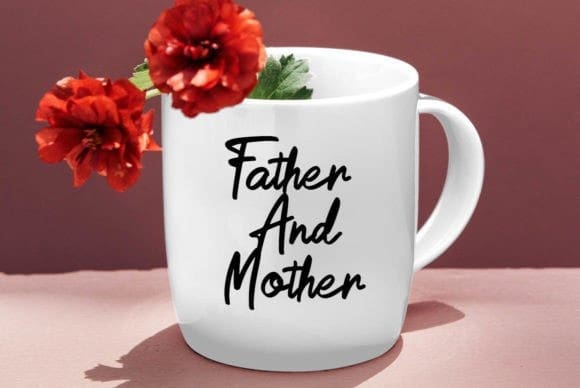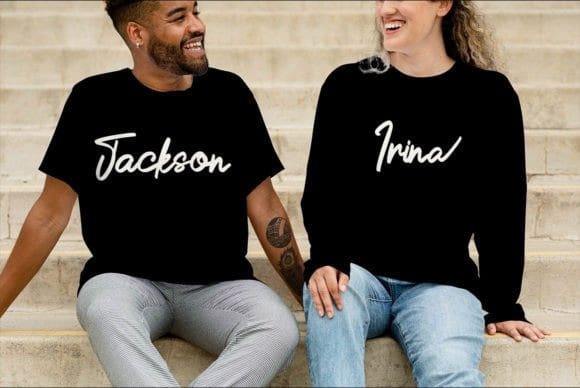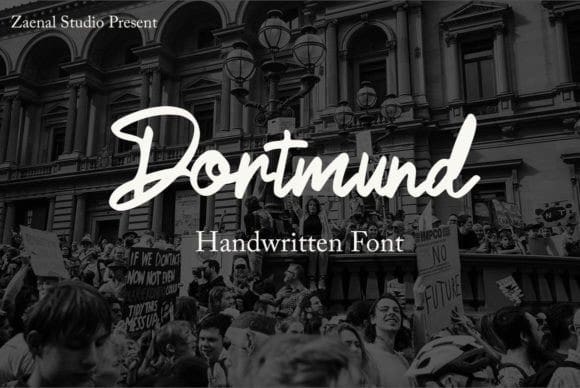
Dortmund Script Font
Dortmund Script Font, is a Handwritten Script Font, unique font, and a very elegant font for brand and logo designs.  It is perfect for, invitations, business Card, Vintage logos, BRANDING, and LOGO DESIGN. You will get a classy, elegant, and of course unique logo with this font.
To make it look even more unique we created some ligatures for you, so you can create any amazing design you want.